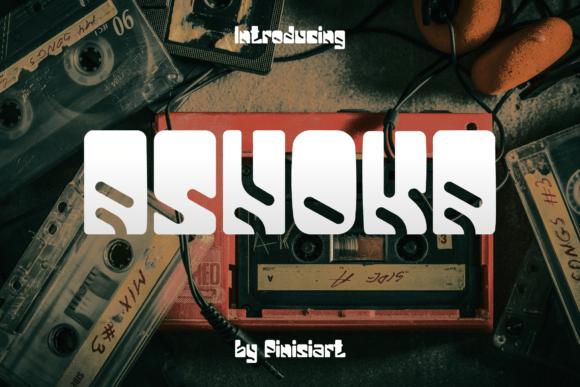
Unleash Your Creativity with Ashoka Font: The Ultimate Expression in Typography
In the realm of visual communication, typography reigns supreme. It sets the tone, evokes emotions, and captivates audiences with its ability to transform words into art. Ashoka Font, a modern masterpiece from the creative minds at pinisi.art.koo, emerges as a groundbreaking display font, ready to ignite your imagination and elevate your designs to new heights.
Ashoka is not just a font; it's an experience, a journey into the depths of creative expression. Its meticulously crafted characters, inspired by the rich cultural heritage of India, dance across the screen with grace and elegance. Each letterform is a work of art, adorned with intricate details and flowing lines that create a visual symphony.
Immerse yourself in the world of Ashoka Font and discover a boundless realm of possibilities. Whether you're a seasoned designer seeking inspiration or a novice just starting your creative journey, Ashoka will guide you effortlessly through the labyrinth of typography, helping you craft designs that speak volumes.
Step into the spotlight and let Ashoka Font amplify your message. Its carefully chosen kerning and spacing ensure effortless readability, while its distinct personality adds a touch of intrigue and allure to your creations. From captivating book covers that draw readers in to vibrant music album covers that ignite the senses, Ashoka Font is your perfect companion in crafting visual masterpieces that resonate with your audience.